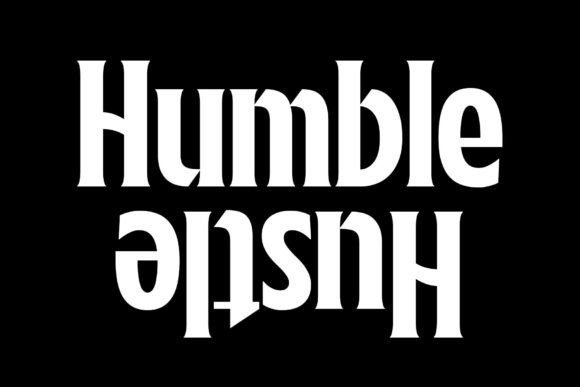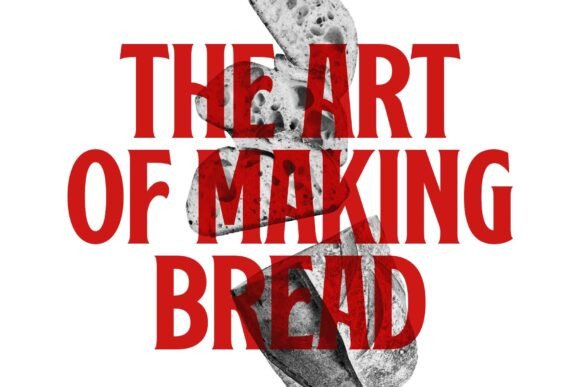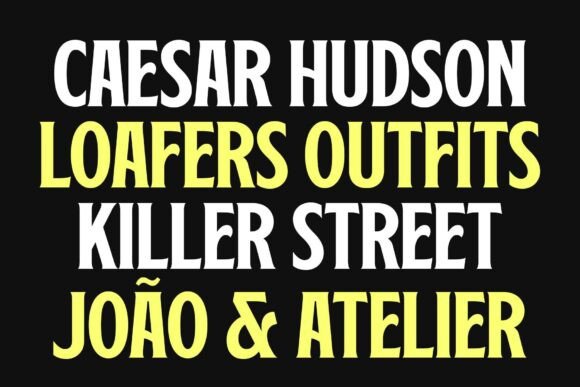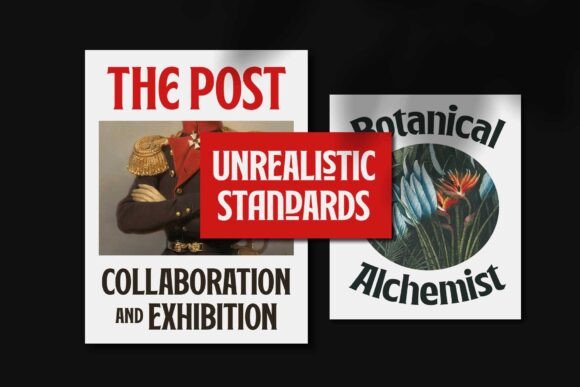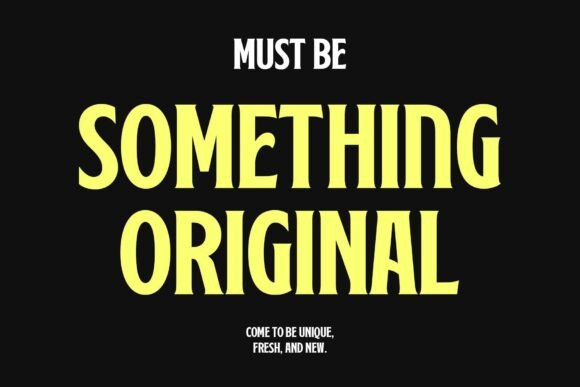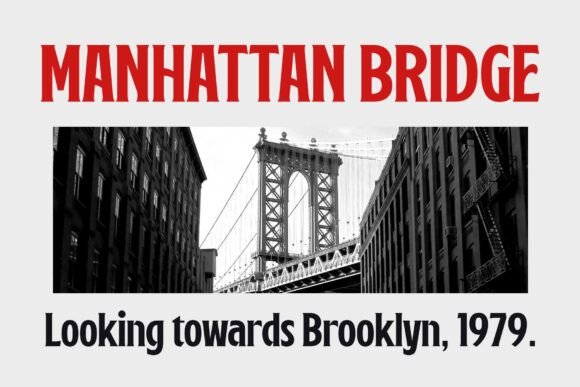
Introduction to Justinas Font
Justinas is a bold display serif that is perfect for headlines.
Its condensed design and sharp edges bring elegance and strength to your designs Justinas combines blackletter style with vintage charm, giving it a classy look suitable for various purposes.
Key Features of Justinas Font